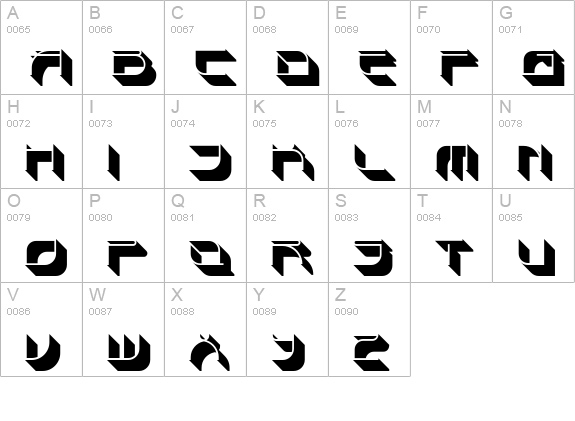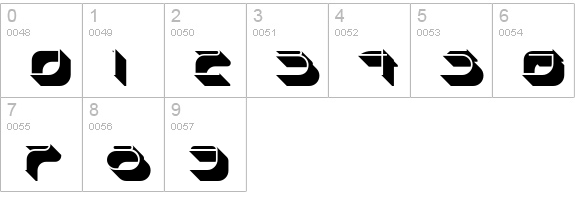
Spondulix NF Font Details
Spondulix NF font is a stunning display font that exudes elegance and sophistication. With its clean and bold lines, this font is perfect for adding a touch of modernity to any design project. The unique, slightly rounded letterforms give Spondulix NF font a contemporary edge, making it suitable for a wide range of applications. The versatility of Spondulix NF font is further enhanced by its extensive character set, which includes uppercase and lowercase letters, numbers, punctuation marks, and special characters. This font is truly a designer's dream, offering endless possibilities for creative expression. What sets Spondulix NF font apart is not just its captivating design, but also the fact that it is free to download. That's right, this exceptional font is freely available at FontsMarket.com, making it accessible to designers of all levels. Whether you're a professional graphic designer or a hobbyist, Spondulix NF font provides a high-quality solution without breaking the bank. So, why wait? Download Spondulix NF font today and unlock a world of design possibilities. Whether you're working on a branding project, creating eye-catching advertisements, or designing captivating social media graphics, this font will effortlessly elevate your work to new heights. With its modern flair and accessibility, Spondulix NF font is a must-have in every designer's toolkit.